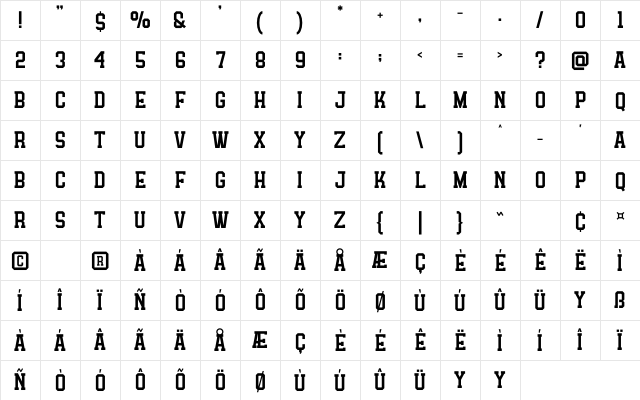
Holborn Regular Free Font
Holborn Regular
Designer: Maikohatta
Design Context for Holborn
Holborn is a composed and adaptable typeface that performs quietly and consistently across a wide range of design contexts.